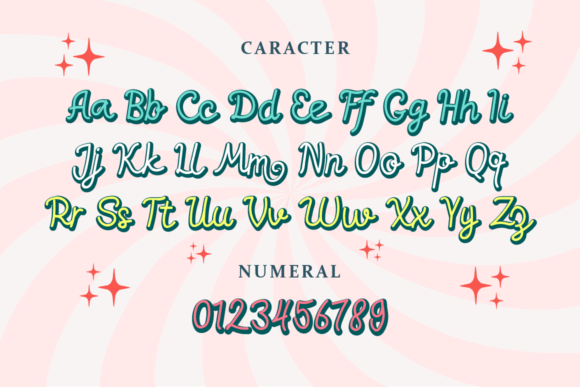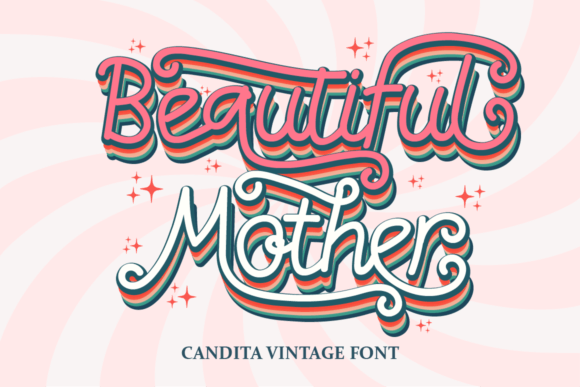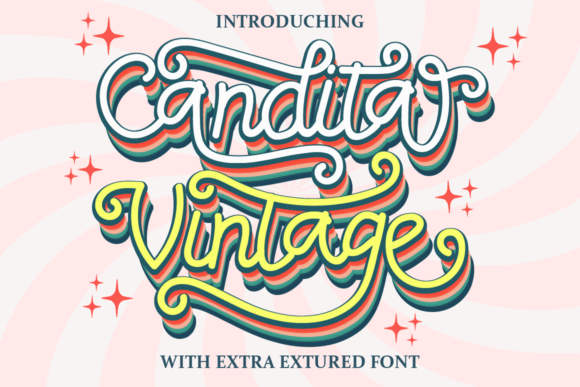
Candita Vintage Font
Designer: Bellinghamtype
Candita Vintage Font is handwritten script font. This font would be perfect for photography, watermarks, social media posts, advertisements, logos & branding, invitations, product design, labels, stationery, wedding designs, product packaging, special events, and other projects.